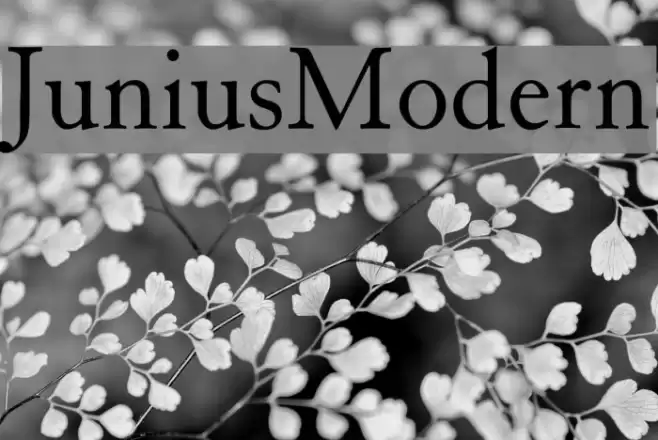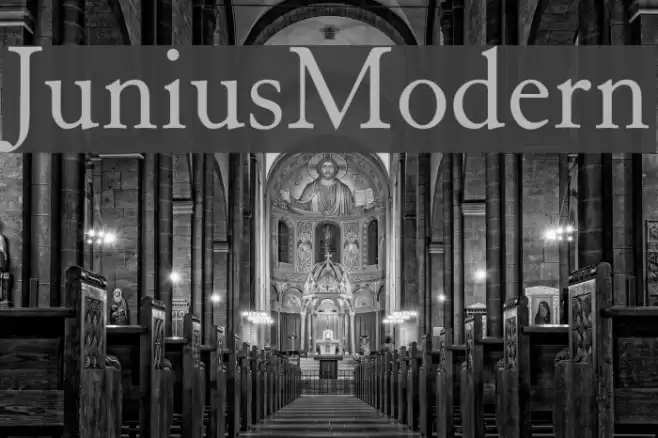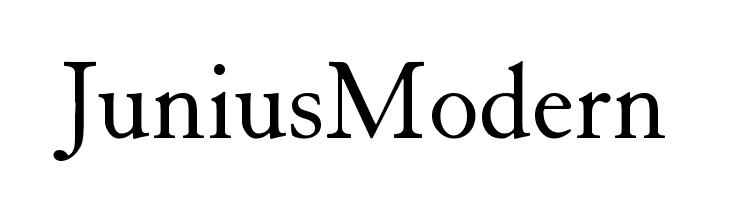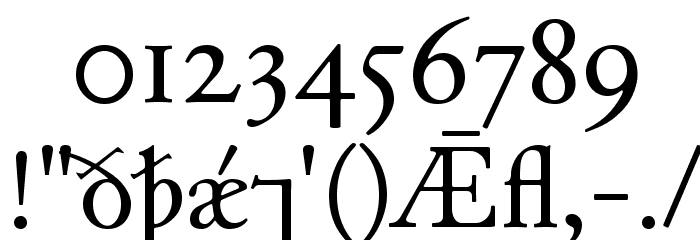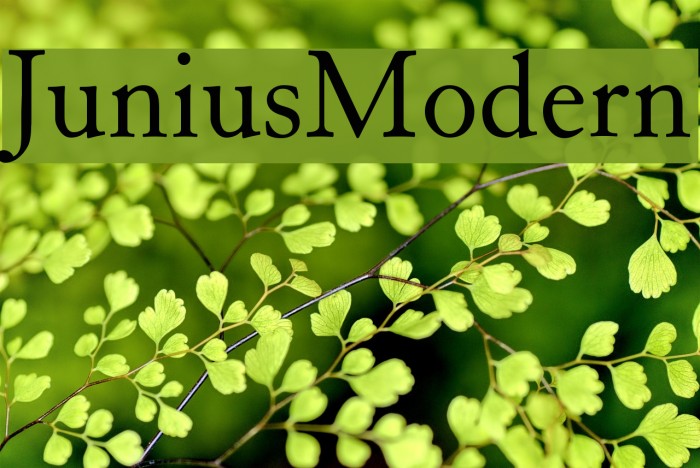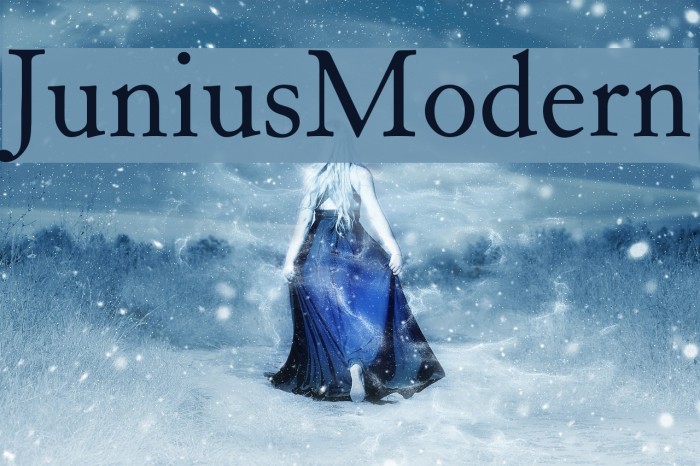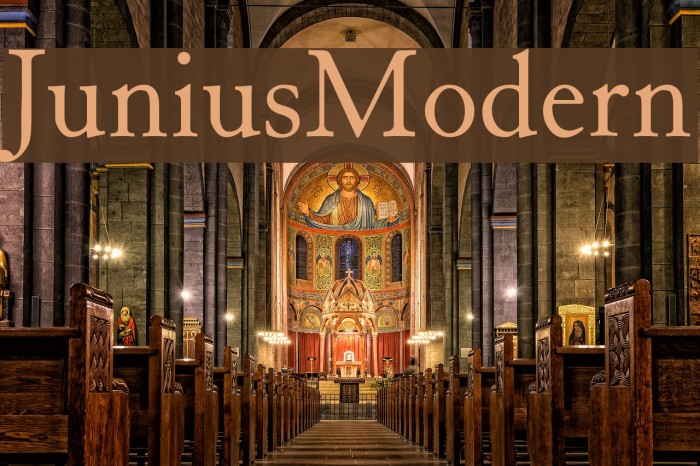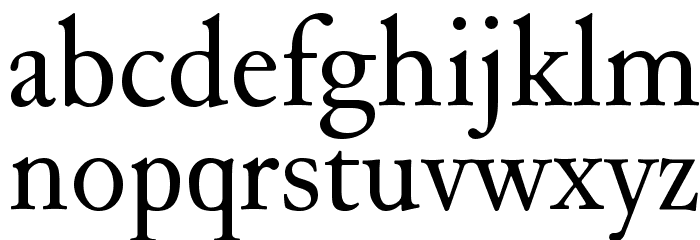
JuniusModern Font
JuniusModern Description
This font features a classic serif style with elegant and refined strokes. The uppercase letters are bold and commanding, while the lowercase letters maintain a balanced and harmonious appearance. The numerals are clear and distinct, making them easily readable. Special characters are well-integrated, adding versatility to the font. The overall design is sophisticated, suitable for formal and professional applications.
A classic serif font with elegant strokes and balanced design from Uncategorized fonts.
- Proposed Projects: Ideal for book covers, formal invitations, branding, and editorial design.
- Overall Style: Classic